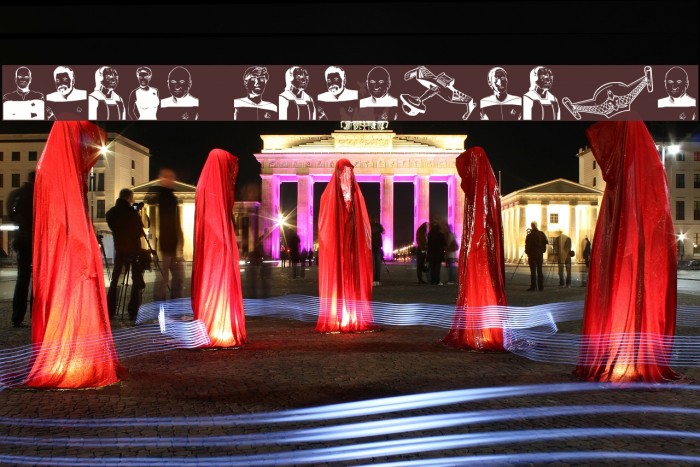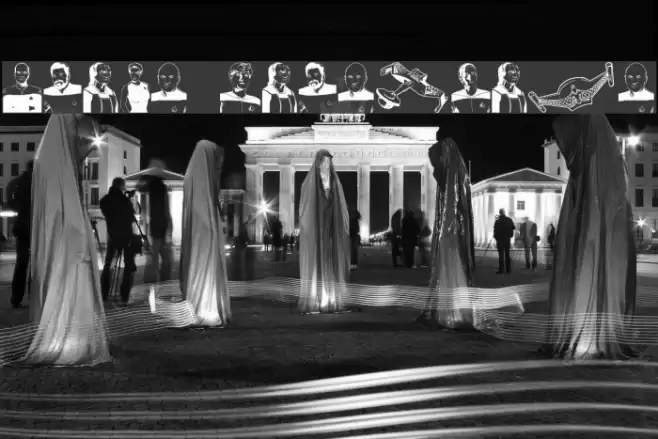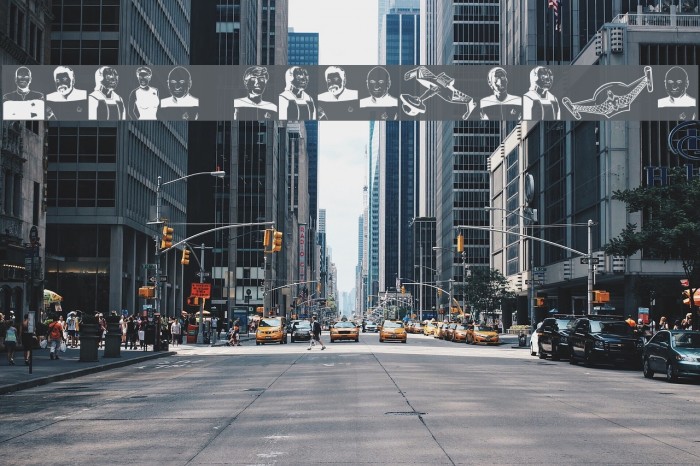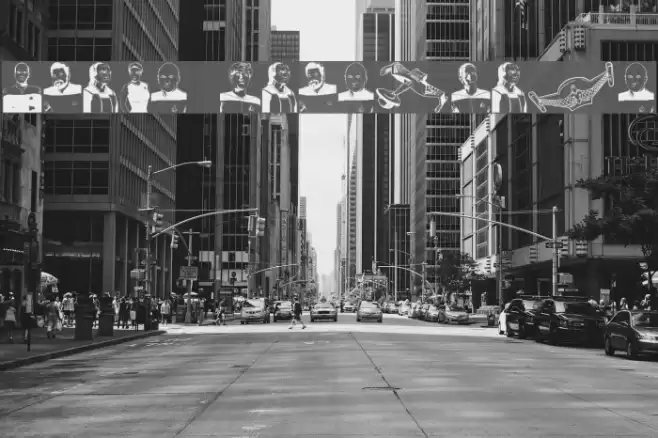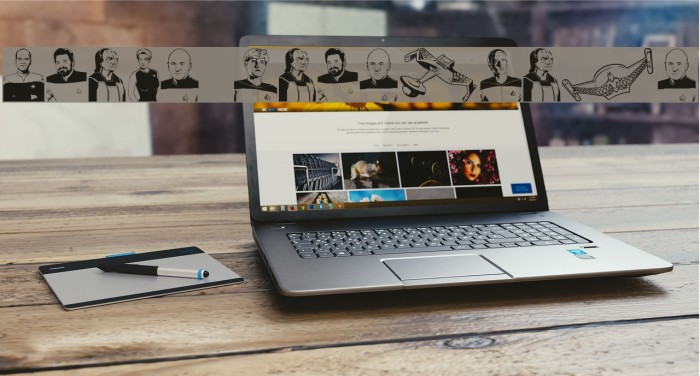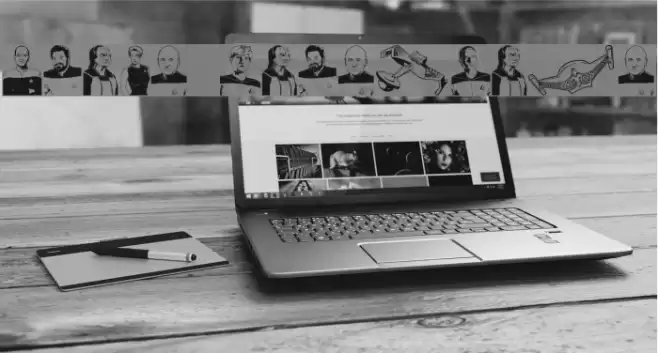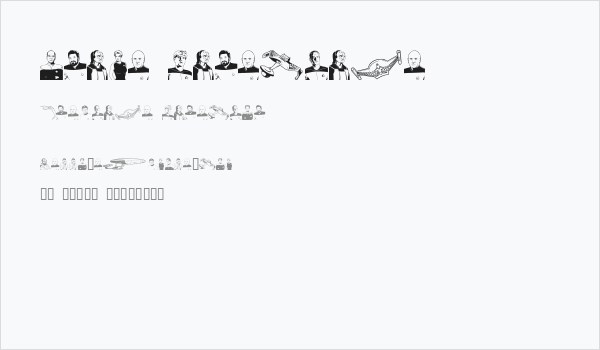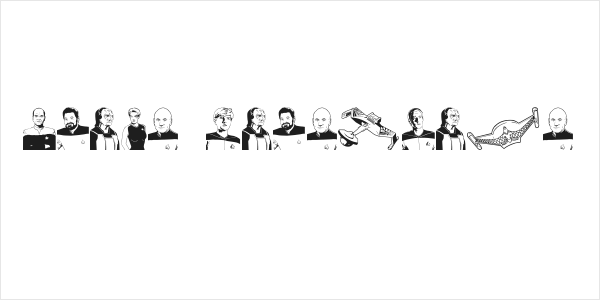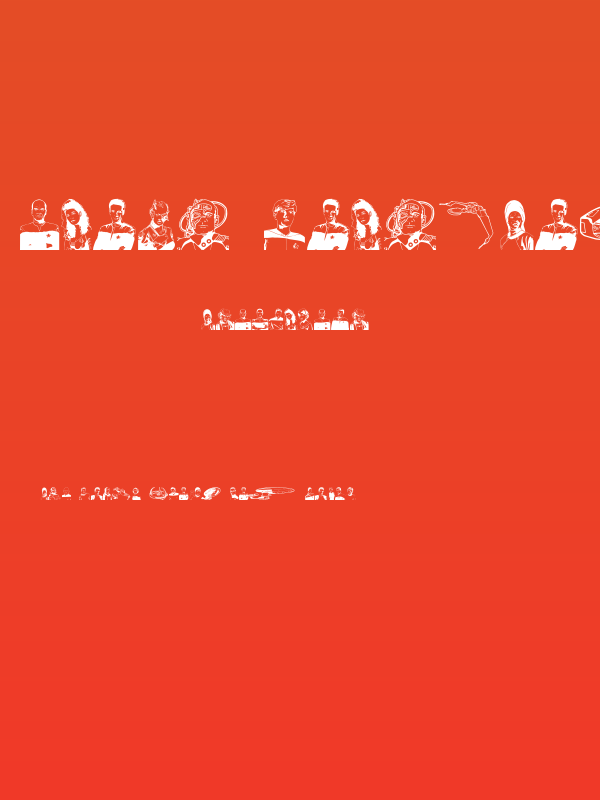
Prime Directive Font
Prime Directive Description
A highly decorative and illustrative font featuring detailed black-and-white drawings of sci-fi characters and spaceships in place of standard alphanumeric glyphs. Each character is represented by a unique illustration, making it more of a pictorial or novelty typeface than a traditional font.
| Overall Style | Decorative, Thematic, Illustrative |
| Use Case | Display, Posters, Themed graphics |
| Proposed Projects | Posters, fan art, themed event invitations, novelty projects, collectibles, and sci-fi convention materials. |